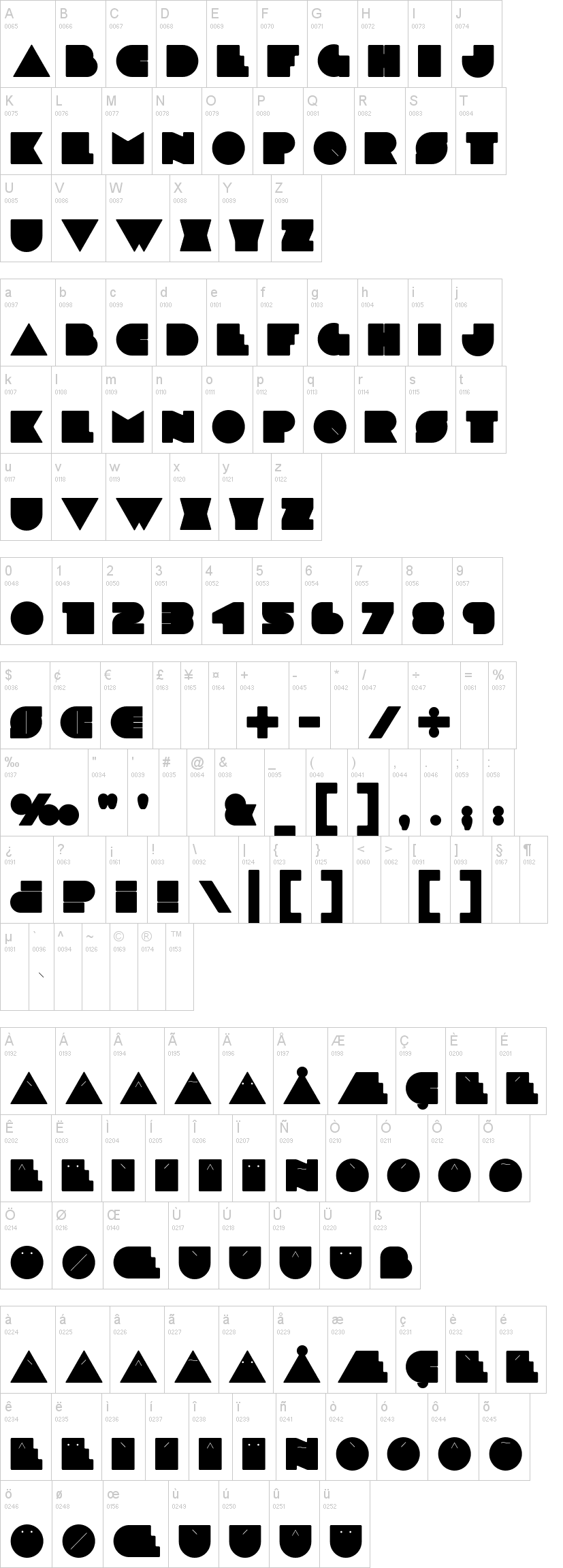
Шрифт Moo!
MOO! is a free font, a ultra-fat, electro-style, geometric typeface.
It was designed focusing on logotypes, titles and display letterforms, with cut-out diacritics.